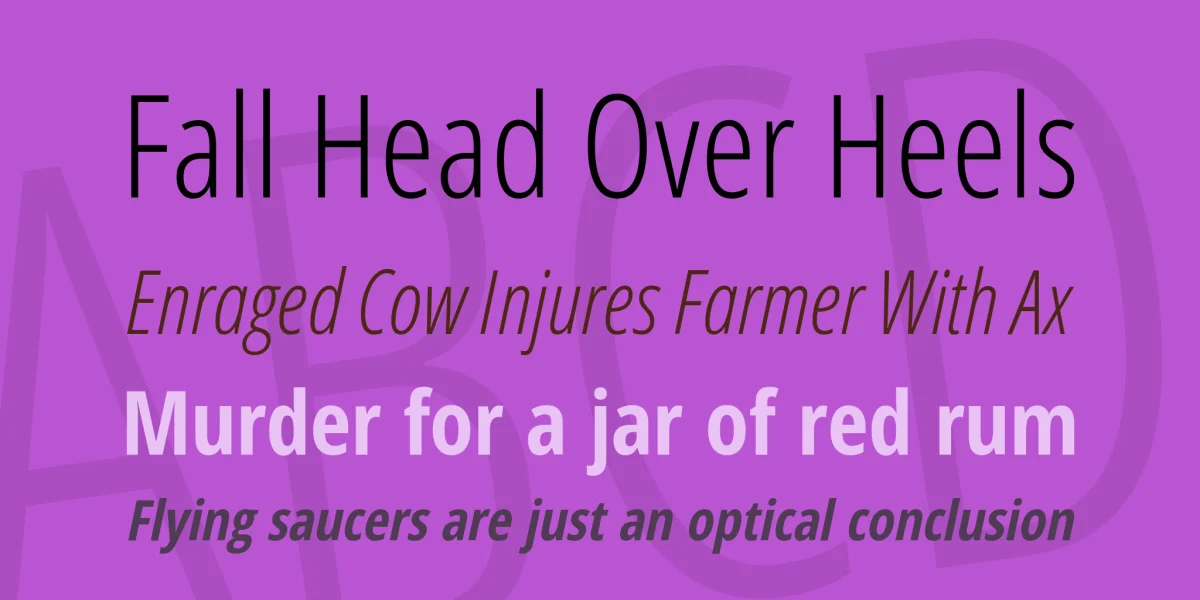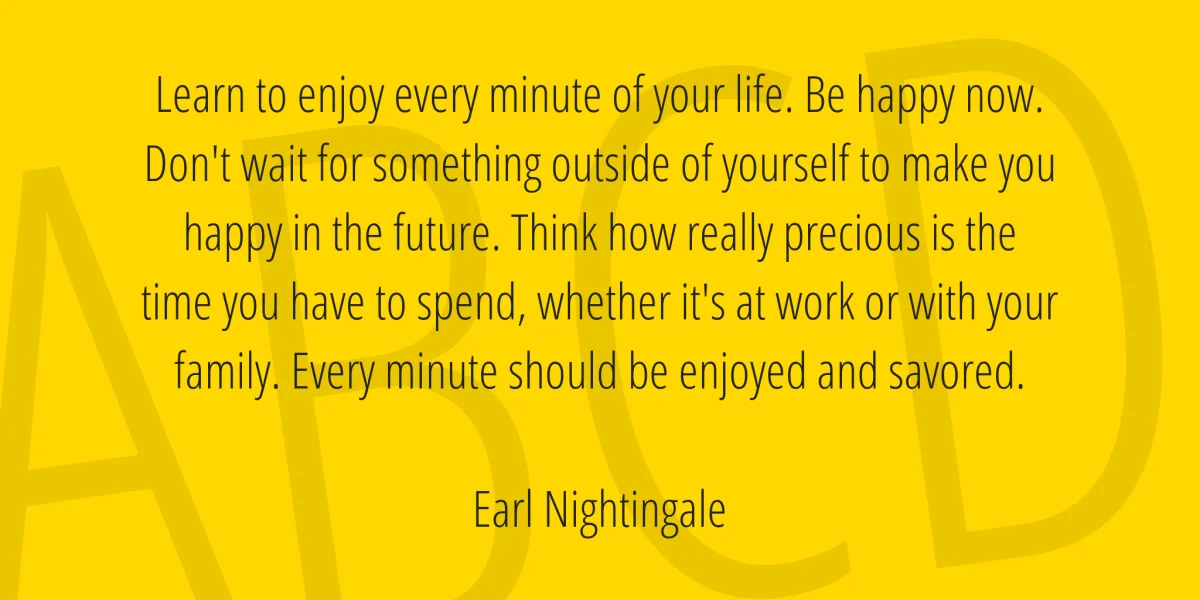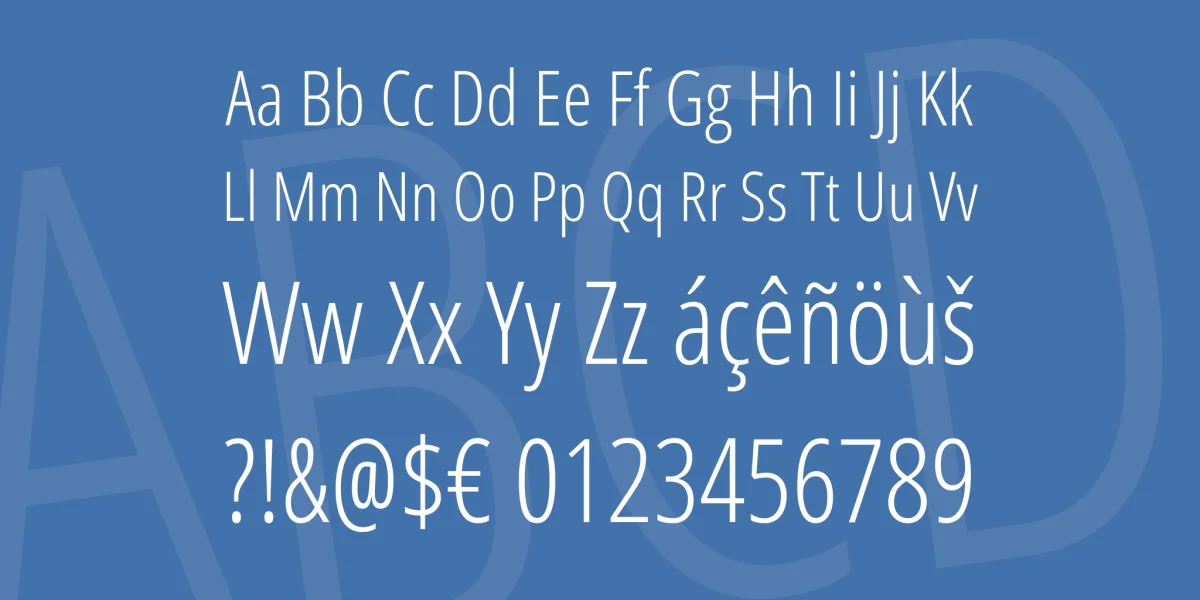
Germano is based on Open Sans Condensed by Steve Matteson, with adding of a BoldOblique Typeface. Open Sans Condensed, in my opinion, is one of the greatest condensed typefaces of all time. Unfortunately, it has some problems, that's why I have created Germano. Update: now, in this zip archive, comes the complete @ font-face package.